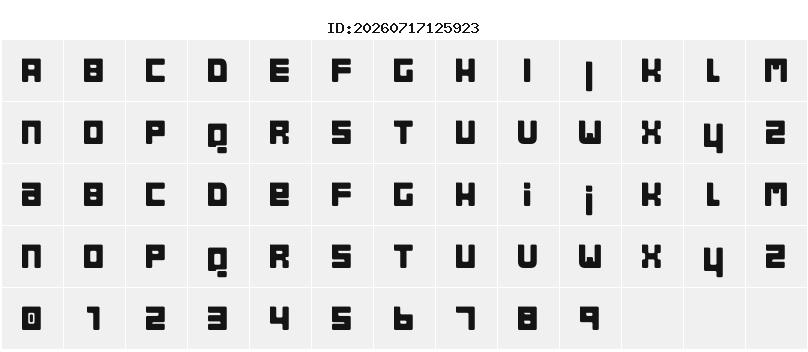
• Font Name: Bob
• Font ID: MondayRec Media: Finder, 2001
• Full Font Name: Bob Filled
• Version: Version 1.01; December 4, 2001
• PostScript Name: Bob Filled
• Character Count: 144
About Bob.ttf
Bob.ttf is a modern, elegant sans-serif font designed for ultimate readability and visual harmony. Perfect for branding, headlines, web design, and print materials.